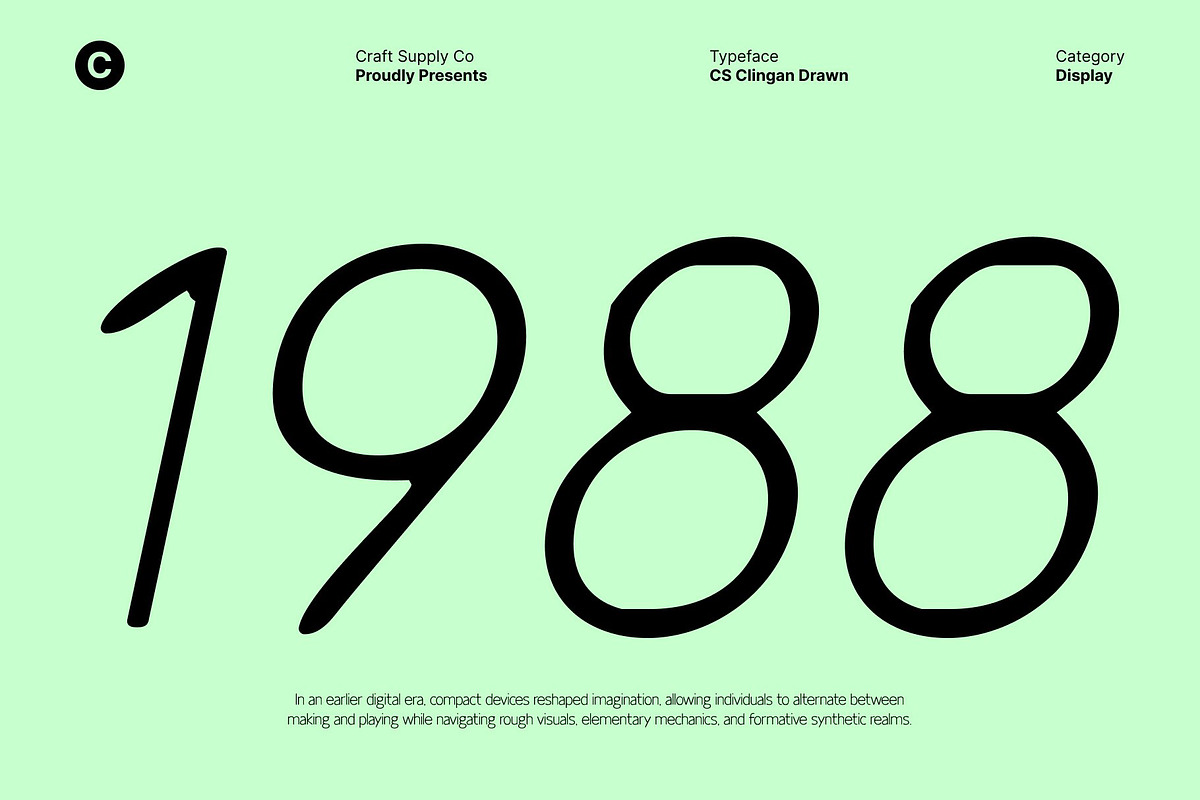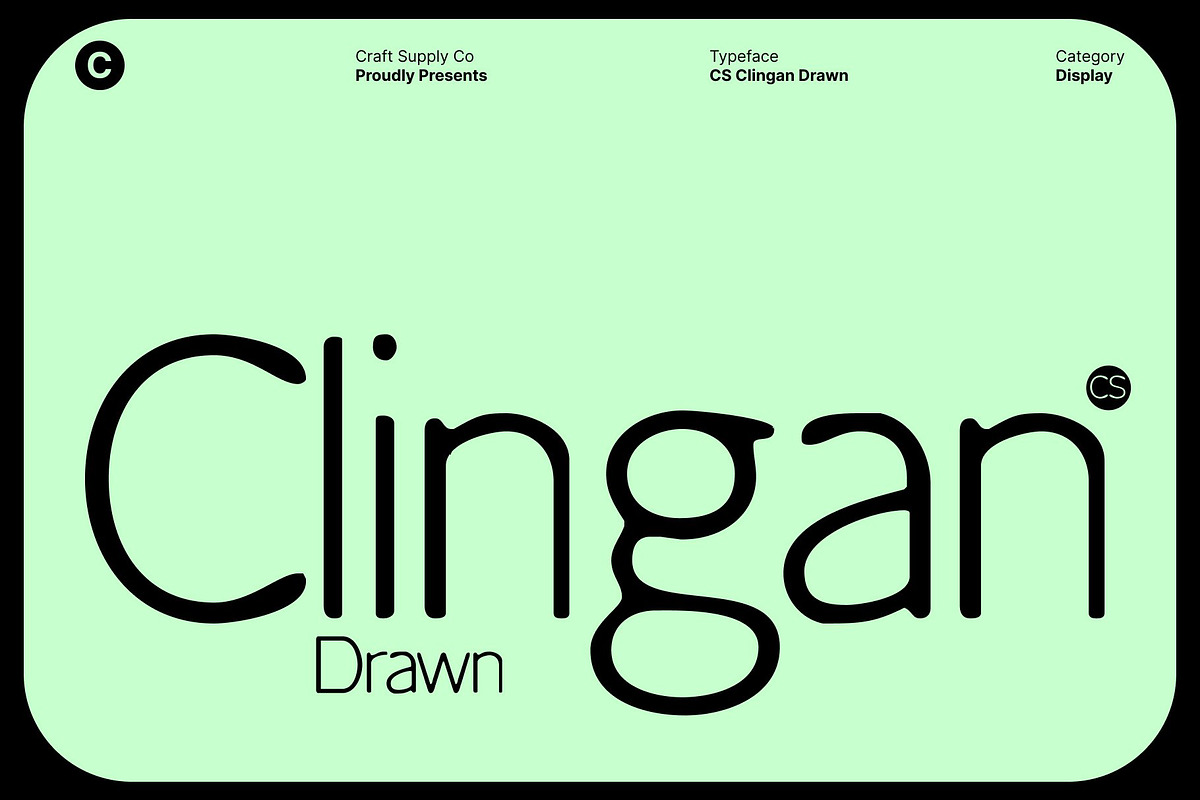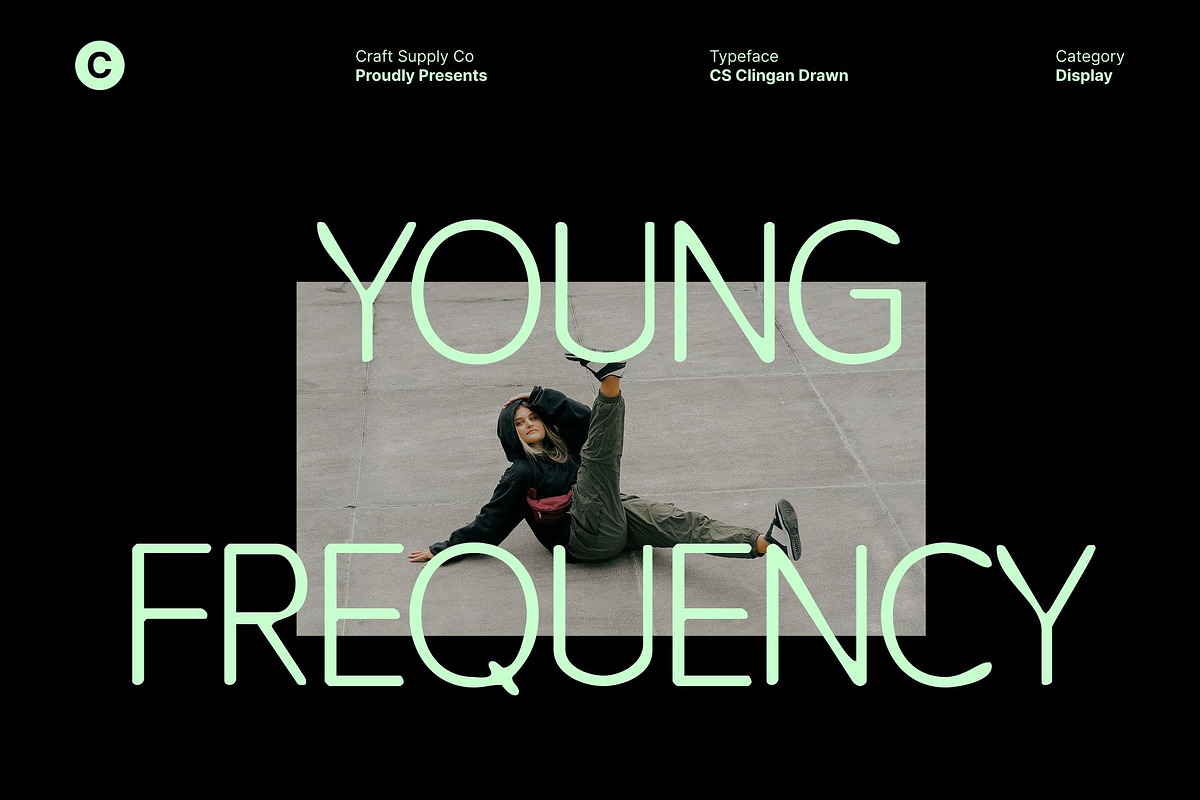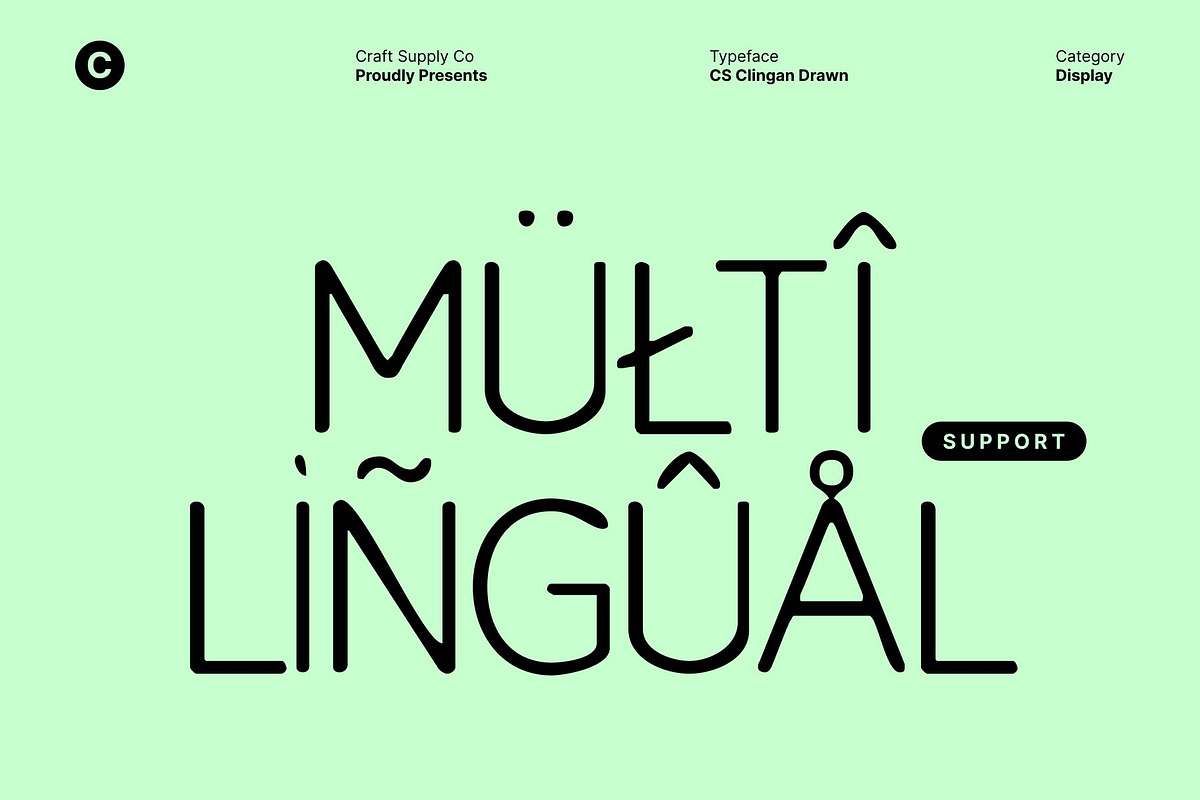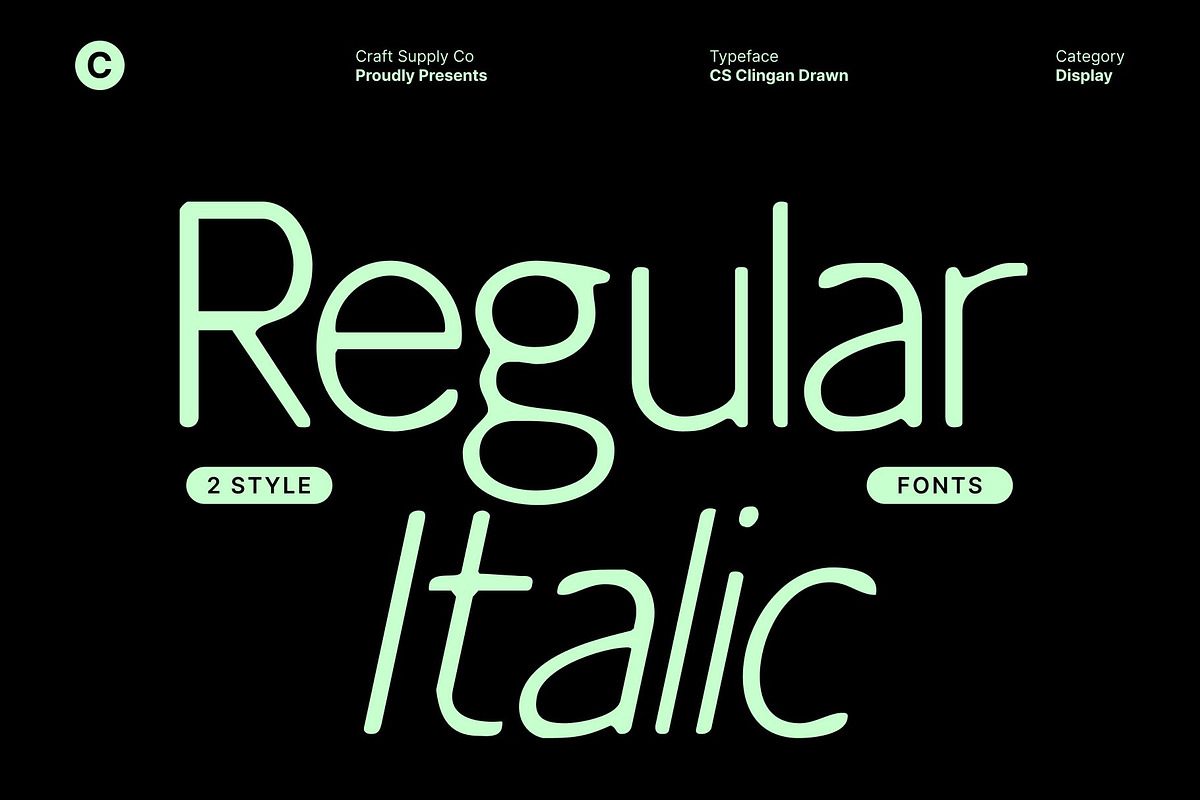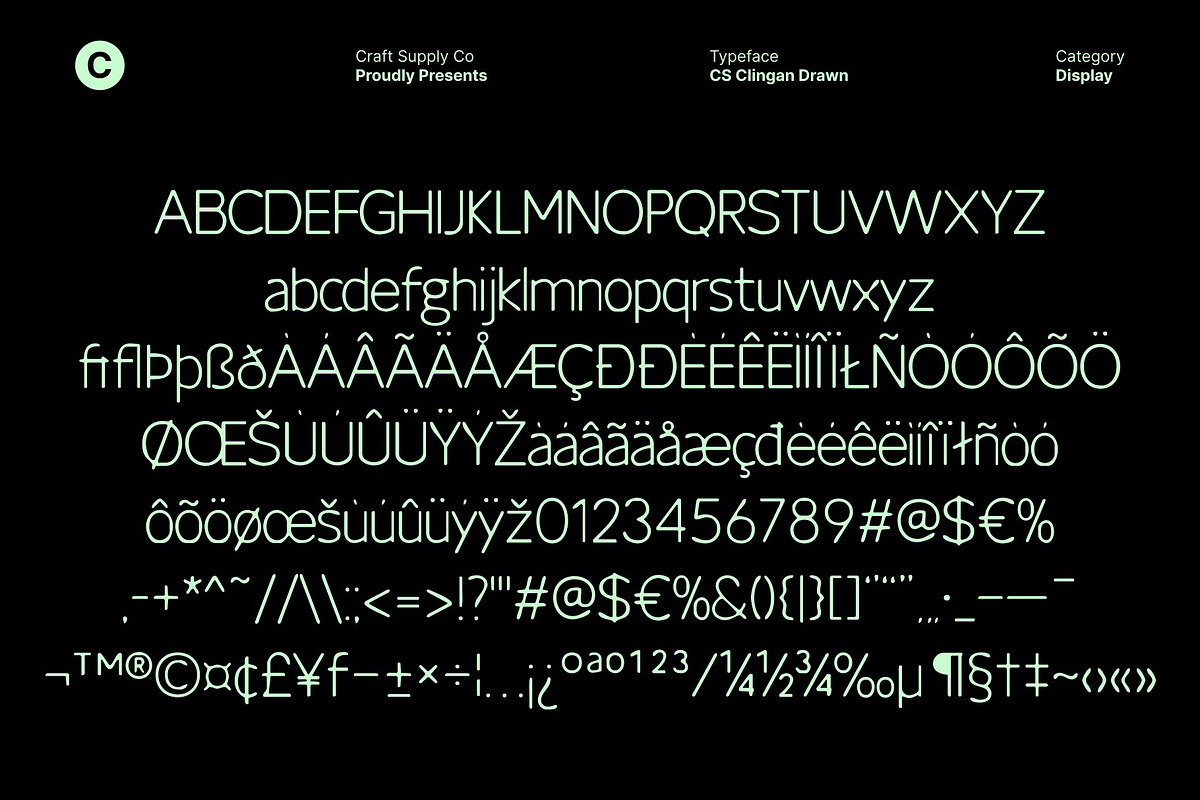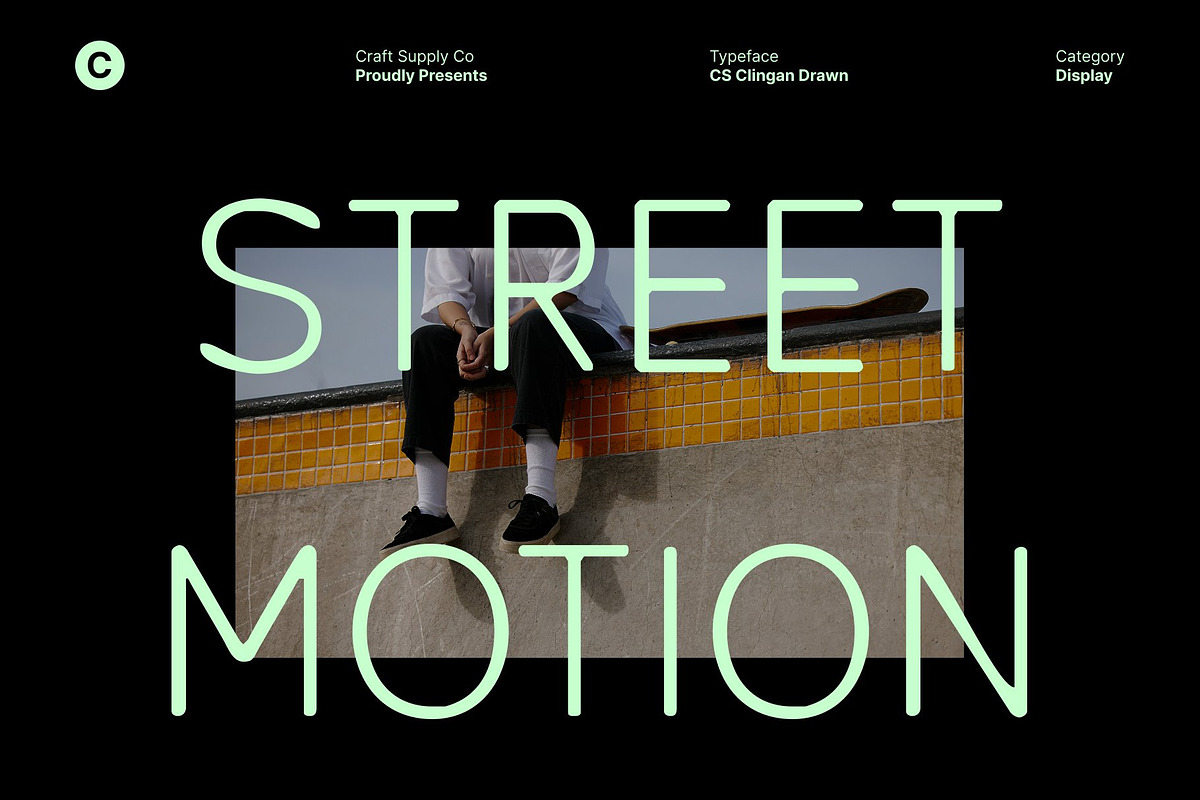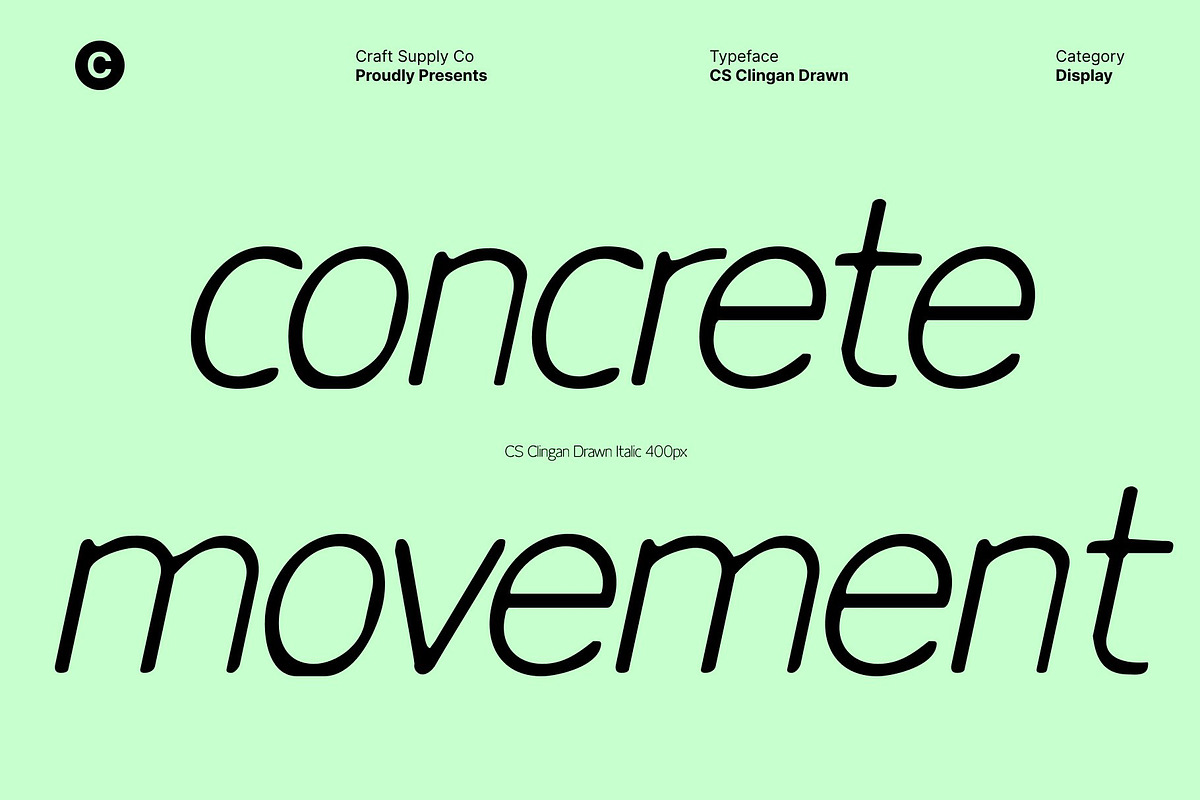
CS Clingan Drawn
CS Clingan Drawn – A Contemporary Sans Serif Font with Elegant Minimalism
Thin Precision with a Hand-Drawn Sensibility This is a modern sans serif font defined by thin strokes, minimalist geometry, and a refined drawn texture. Its clean construction delivers a sleek, contemporary look, while the subtle hand-drawn detail adds warmth and character. This balance creates typography that feels elegant, calm, and thoughtfully crafted.
Refined Structure for Modern Sophistication Designed with careful attention to proportion and spacing, this font embraces negative space and visual lightness. The slender letterforms feel airy and composed, projecting quiet confidence and understated luxury. The drawn effect introduces a soft, organic nuance without disturbing its polished, professional appearance.
Perfect for Branding, Editorial, and Digital Design This font excels in modern branding, editorial layouts, UI/UX interfaces, and creative projects that value clarity and elegance. It works beautifully across fashion, beauty, lifestyle, and technology visuals, offering a refined typographic voice that supports content without overpowering it.
Minimalism with Lasting Character More than a minimalist font, this font delivers memorability through subtle detail. Its combination of thin modern forms and handcrafted texture makes it ideal for logos, headlines, web design, and premium packaging where simplicity, elegance, and individuality matter most.
- CS Clingan Drawn Regular
- CS Clingan Drawn Italic